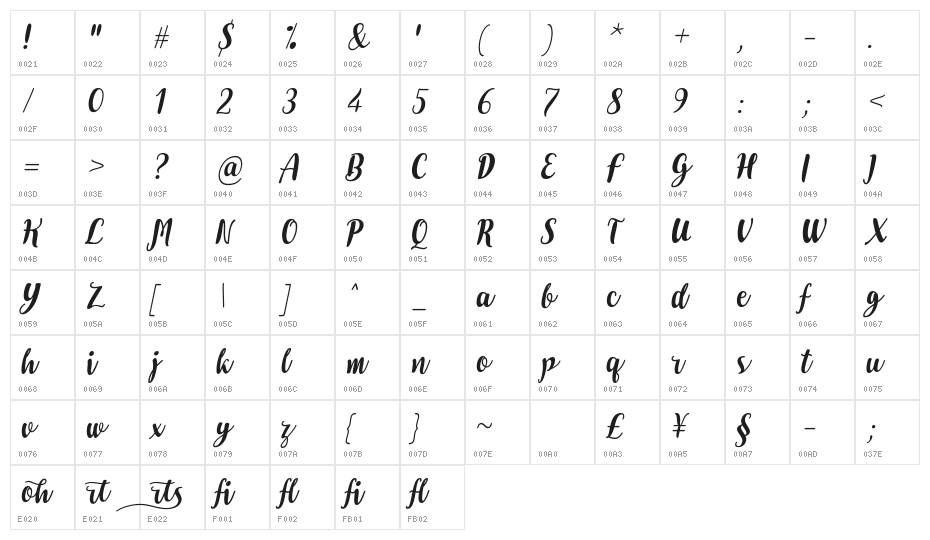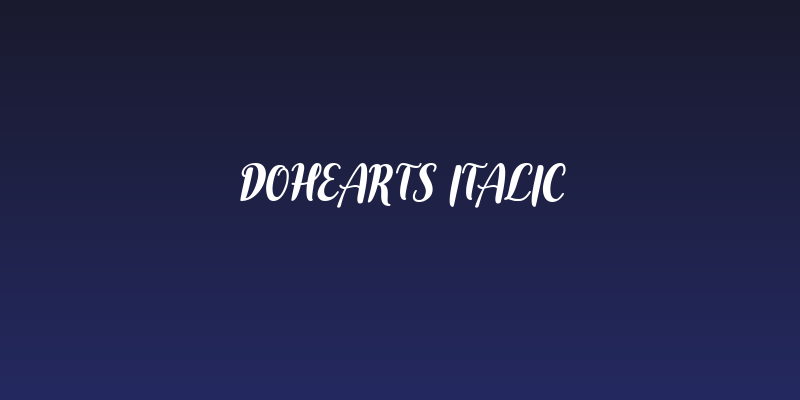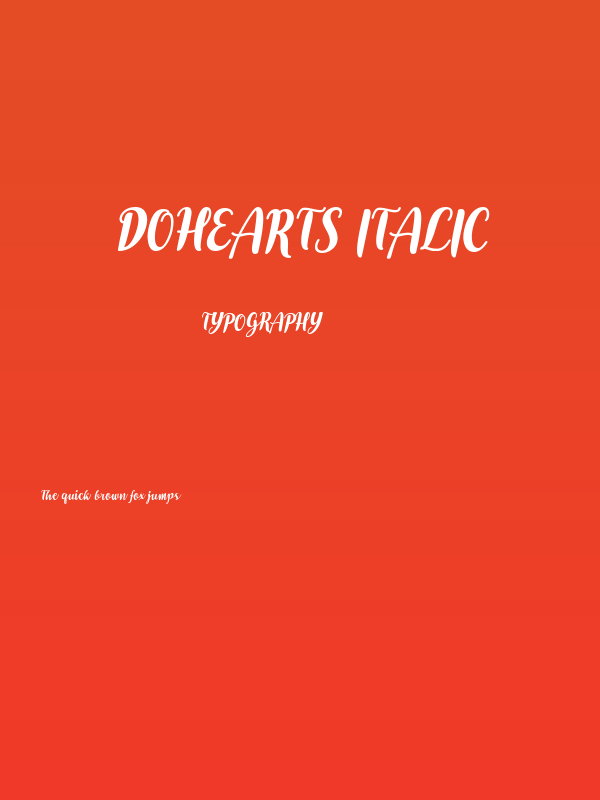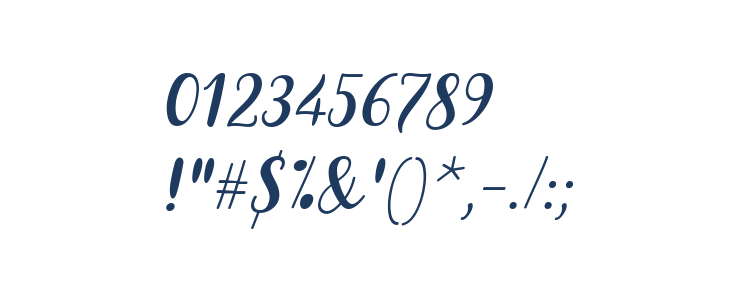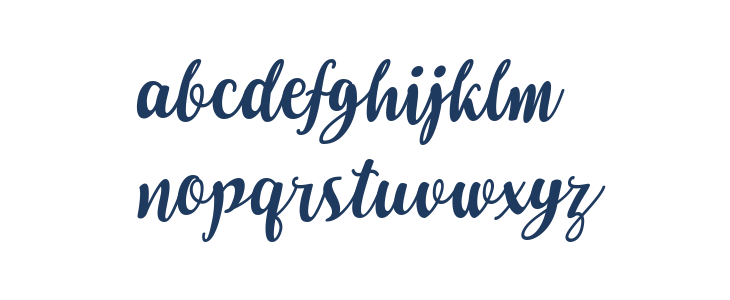
Dohearts Italic Font
Dohearts Italic Description
This font features a flowing, cursive style with a distinct italic slant, giving it a dynamic and elegant appearance. The characters are interconnected, mimicking the fluidity of handwriting, which adds a personal touch to any text. The uppercase letters are bold and prominent, while the lowercase letters maintain a consistent flow, enhancing readability. The numerals are stylishly integrated, maintaining the overall cursive theme. Special characters are designed with the same attention to detail, ensuring they blend seamlessly with the rest of the font. This font is ideal for projects that require a touch of sophistication and elegance.
| Proposed Projects | Ideal for wedding invitations, greeting cards, branding, and elegant signage. |